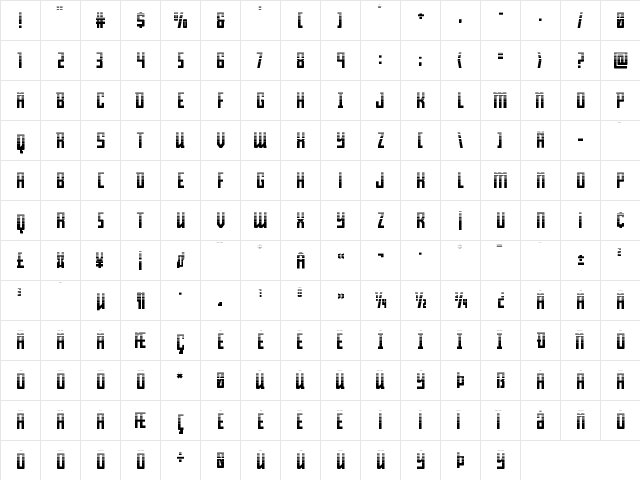
Young Patriot Two-Tone Regular
Design Context for Young Patriot Two-Tone Typeface
Young Patriot Two-Tone takes a measured approach to typography — its balanced proportions and neutral character make it a reliable workhorse for both digital and print work.